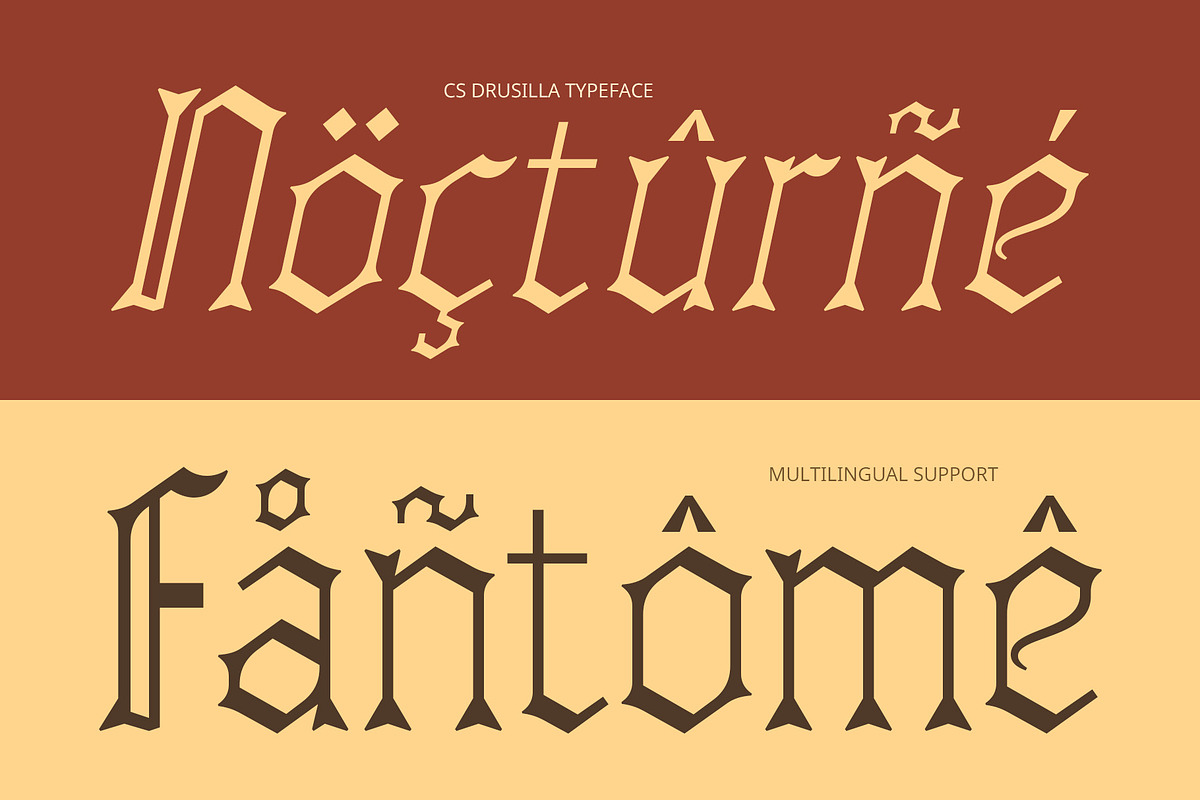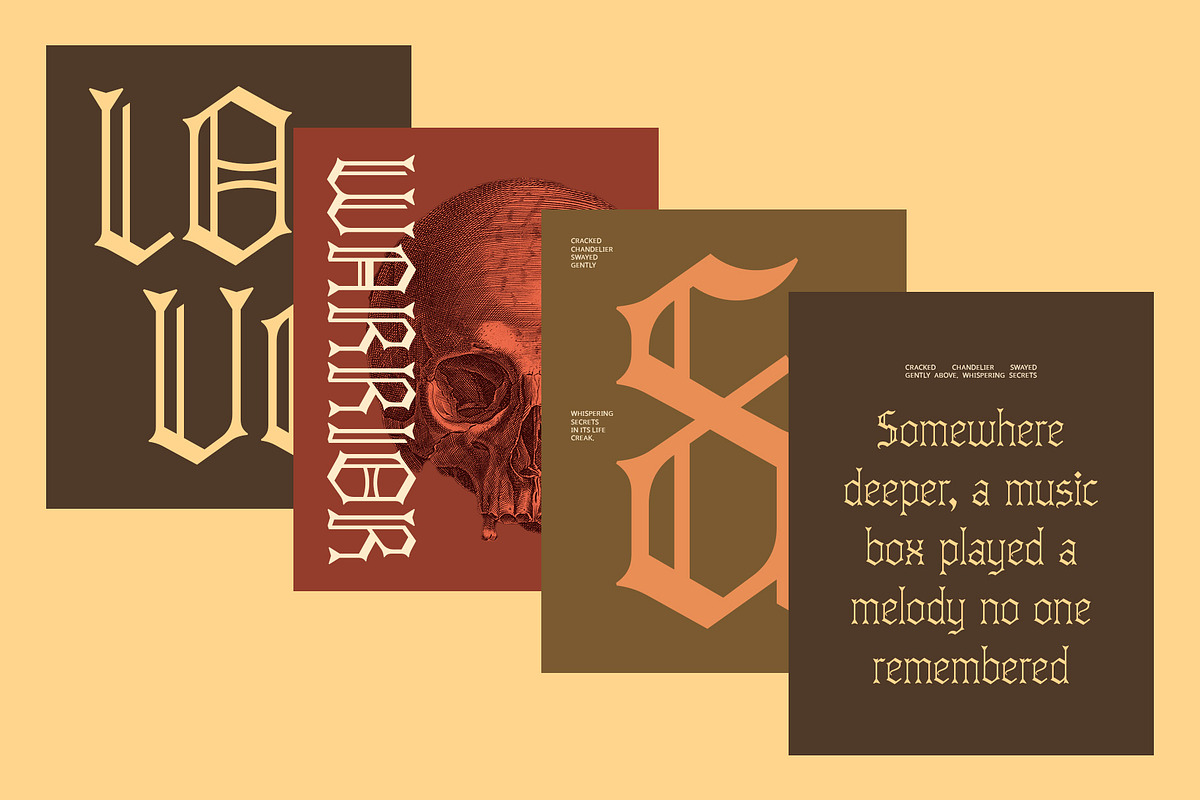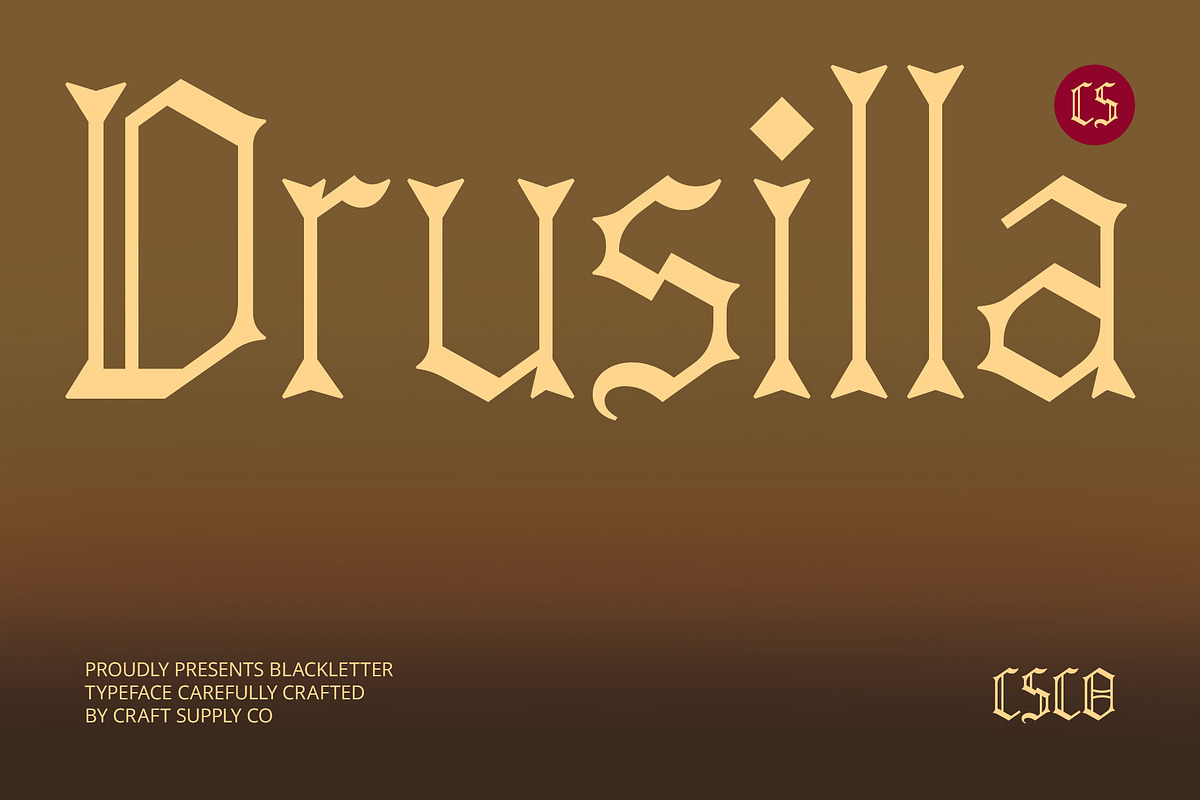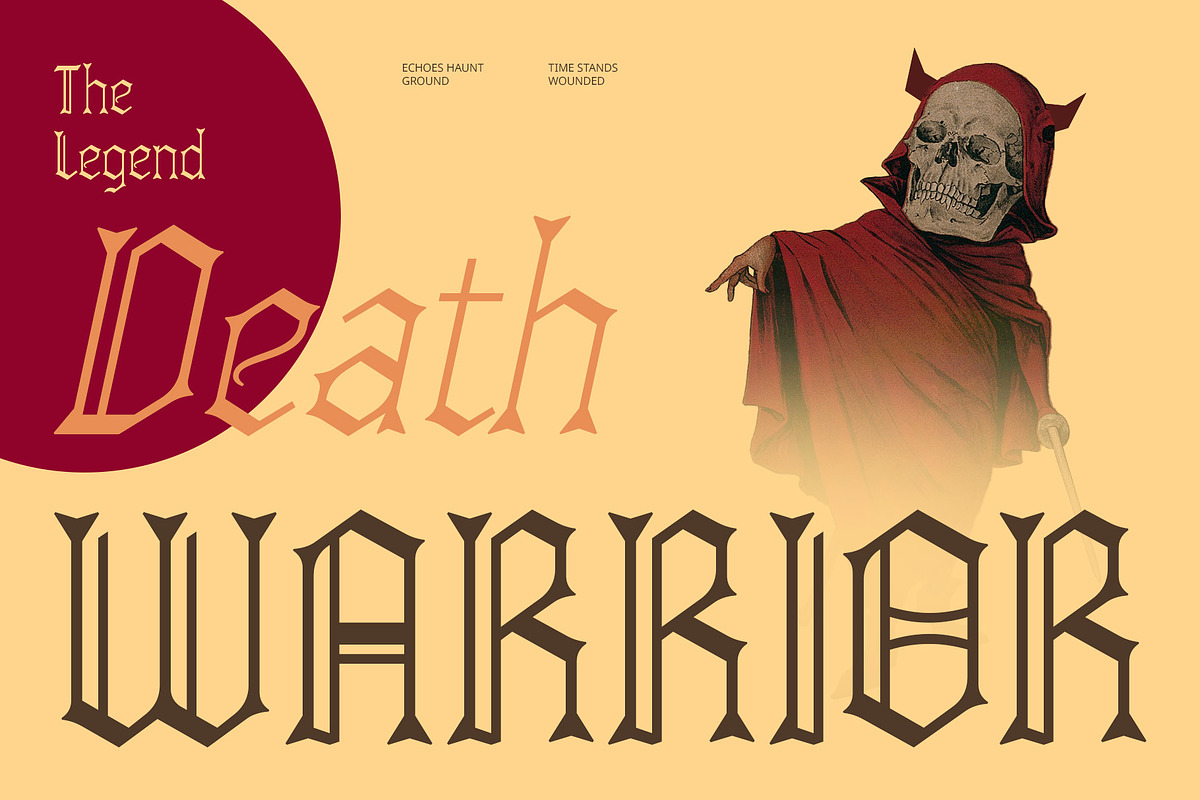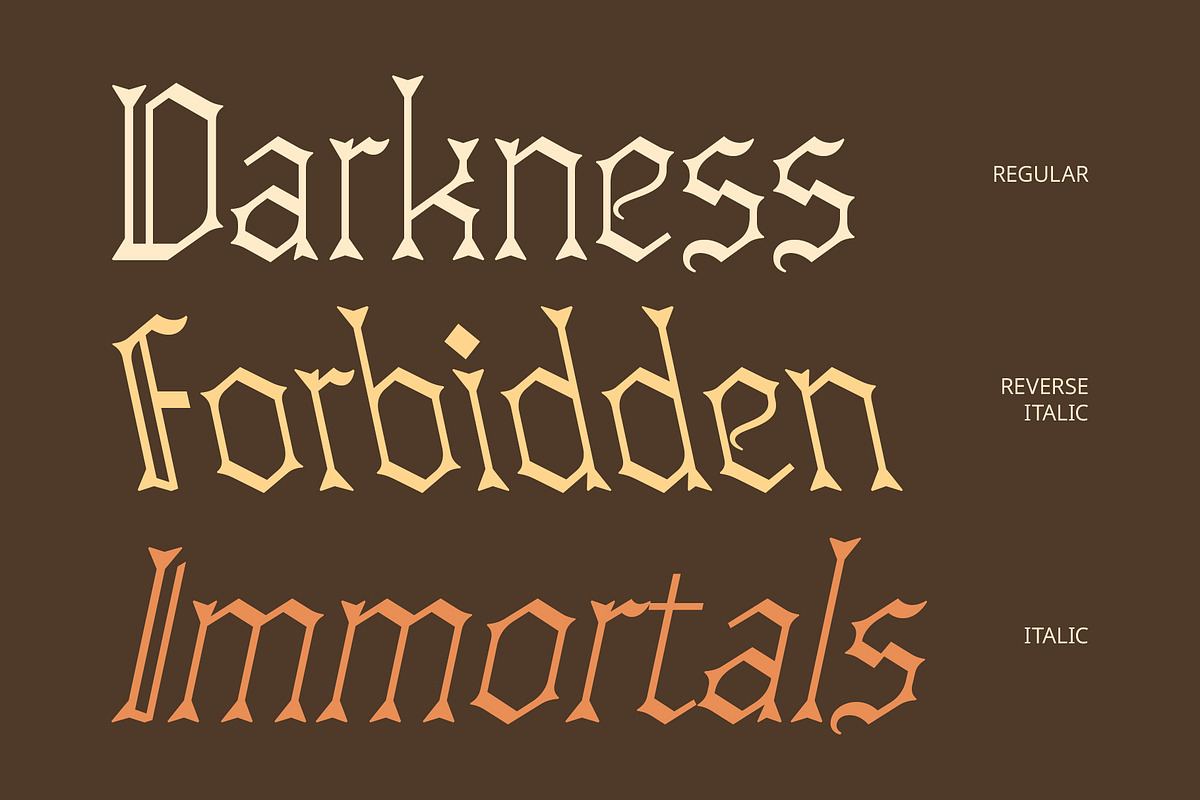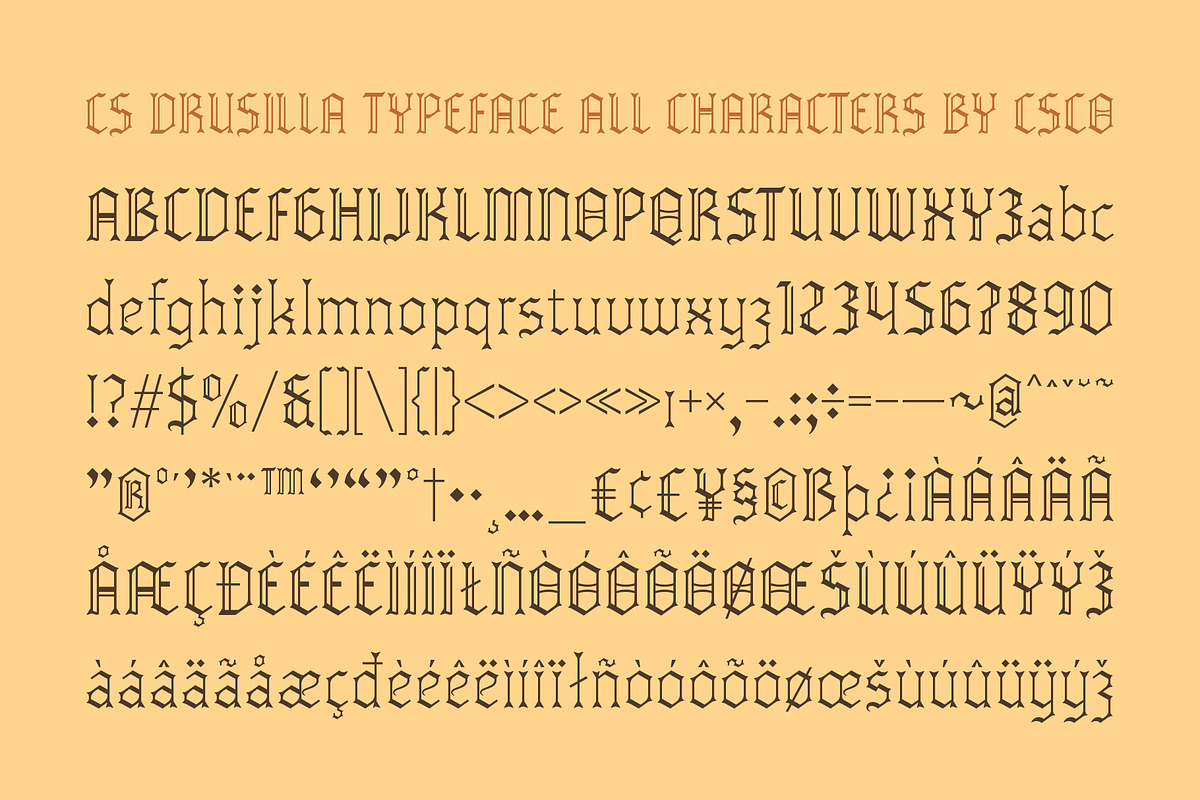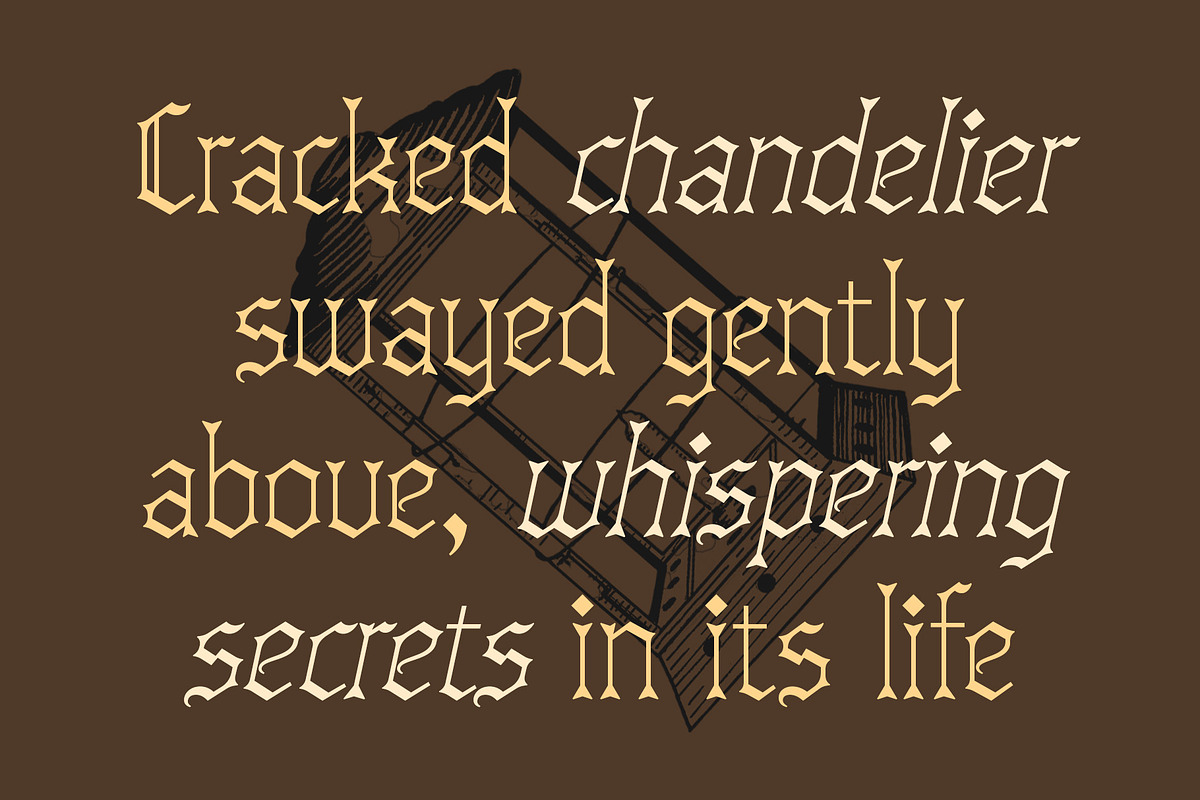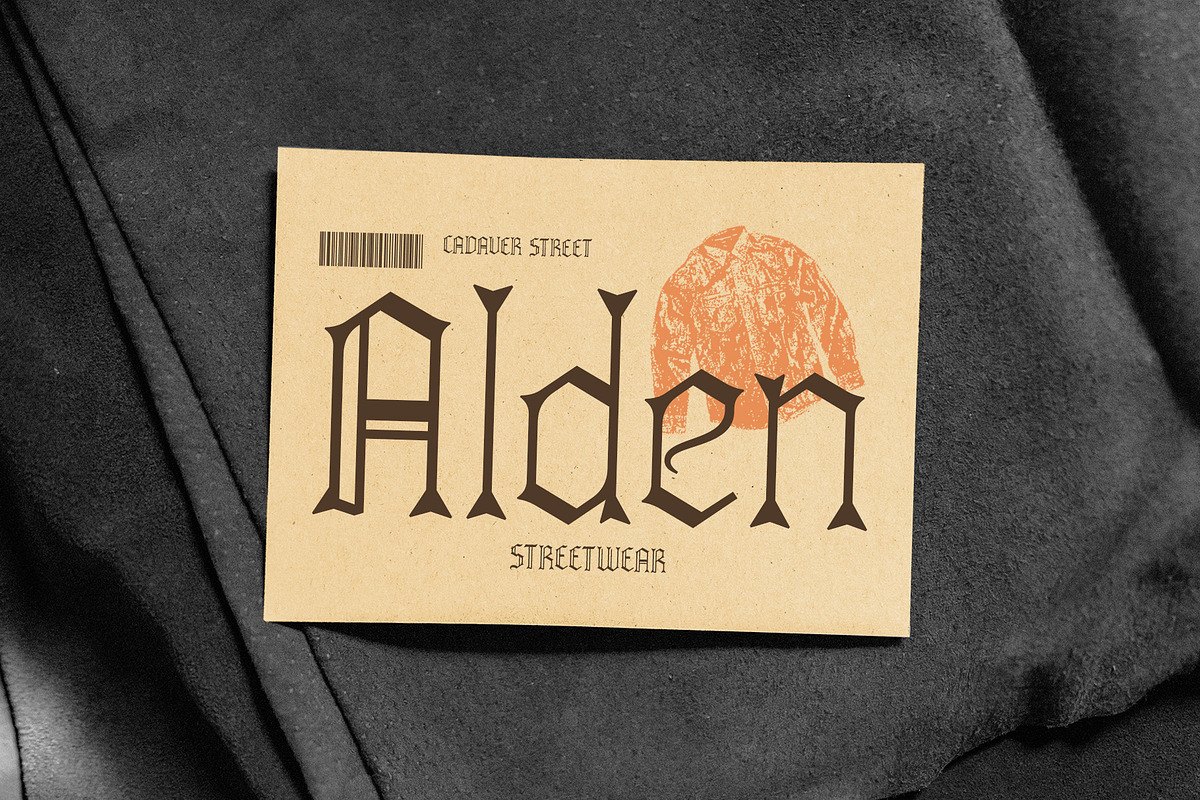
CS Drusilla – Blackletter Font
CS Drusilla – Blackletter Font with a Modern Edge
Gothic Tradition Reimagined CS Drusilla is a modern blackletter display font that fuses the dramatic flair of Gothic calligraphy with a contemporary, streamlined design. It preserves blackletter’s defining features—sharp angles, broken strokes, and intense rhythm—while refining them with minimalist structure and smoother geometry, making it accessible and striking for today’s visual landscape.
Minimalist Form with Bold Personality While true to its roots, CS Drusilla strips away excess complexity to embrace a cleaner, more balanced silhouette. The simplified details and measured spacing lend the font improved legibility without losing its bold presence. This contrast of heritage and modernity results in a typeface that’s both expressive and controlled.
Edgy Style for Artistic Expression With its angular shapes and powerful rhythm, CS Drusilla is ideal for experimental and artistic projects. It exudes a sense of boldness and visual intensity, making it a natural fit for music branding, underground zines, conceptual posters, or fashion campaigns that push creative boundaries.
Perfect for Modern Gothic Aesthetics Whether you’re crafting rebellious editorials, bold merchandise, or contemporary branding, CS Drusilla delivers a fresh take on the blackletter tradition. It brings historical weight and avant-garde sharpness together—perfect for those who want to make a dramatic yet modern statement.
- CS Drusilla Regular
- CS Drusilla Italic
- CS Drusilla Reverse Italic